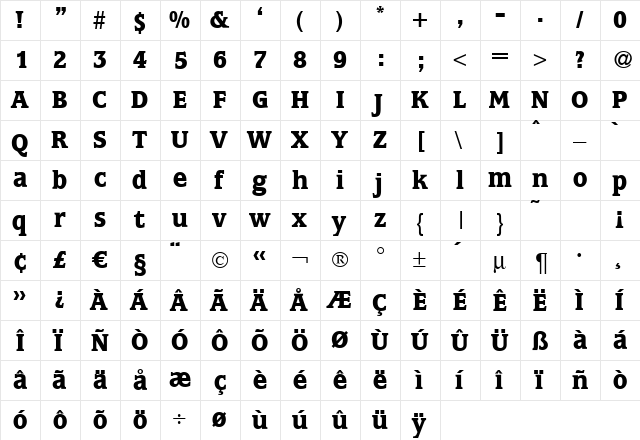
M650-Roman Bold
Design Context for M650-Roman Typeface
M650-Roman is a composed and adaptable typeface that performs quietly and consistently across a wide range of design contexts. Its bold stroke weight gives it real presence on the page.